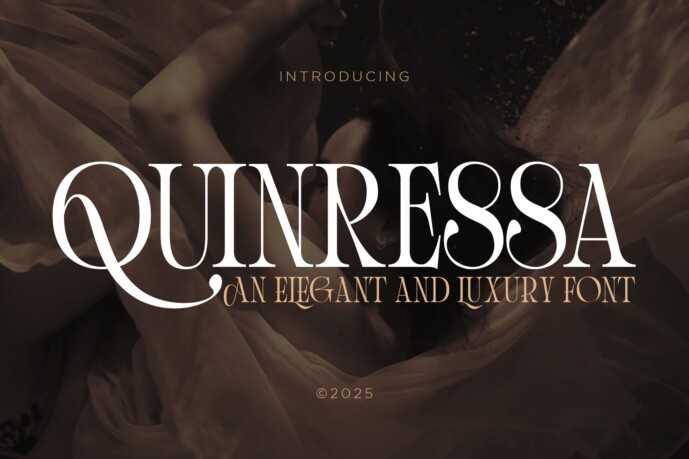
Quinressa Font
Designer: Krafted
IntroducingQuinressa – An Elegant and Luxury Font
Crafted with sophistication in mind, Quinressa brings elegance and luxury to every project. Perfect for high-end websites, branding, invitations, fashion campaigns, and more!
Captivate your audience with this refined, elegant font that exudes class and style.